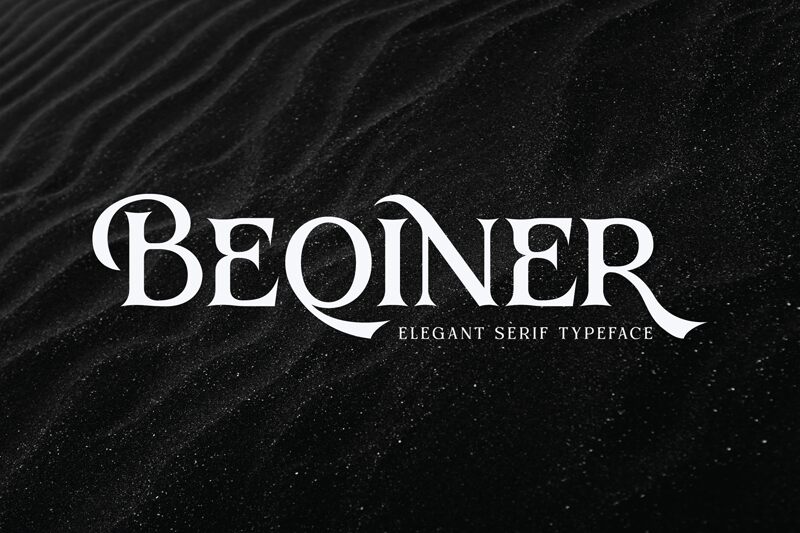
Beqiner, the elegant serif typeface crafted by Dede Nugraha of Denustudios, exudes a captivating blend of classic sophistication and modern flair. This typeface boasts a refined and timeless aesthetic, with each letter meticulously designed to create a harmonious and visually striking impression. The Beqiner font seamlessly combines the timeless allure of traditional serif typography with a contemporary edge, making it a versatile choice for a wide range of design projects.
Beqiner's versatility shines through in its suitability for a variety of applications, from elegant logos and luxury brand identities to impactful book and magazine titles, fashion-forward apparel designs, and captivating lettering and quotes. Its unique character and refined elegance make Beqiner an exceptional choice for designers seeking to elevate their projects with a touch of sophistication and timeless appeal.
BEQINER